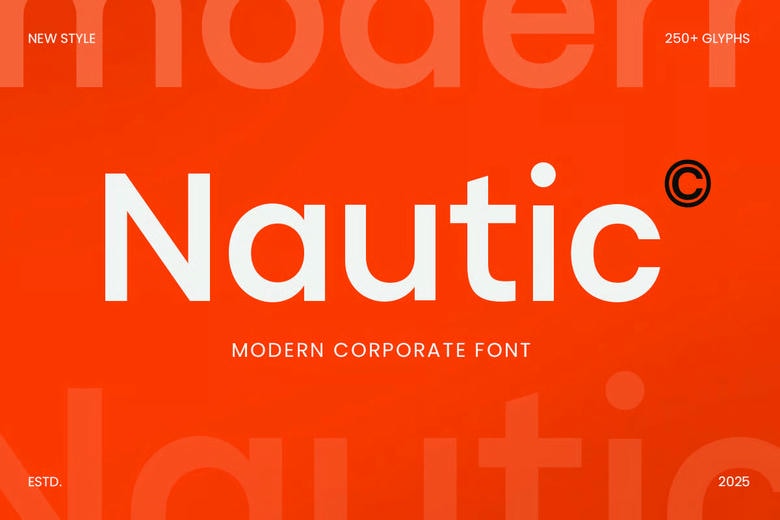
Nautic Font
Nautic is the contemporary corporate typeface that will add a sense of sophistication, professionalism to your branding or business design work. Nautic is ideal to use when designing silky smooth logos, powerful and bold corporate identities and modern business designs.
Regardless of whether you have a tech startup, financial services brand or a professional consulting organization, Nautic brings a clean and contemporary appeal to your brand visuals. It is extremely adaptable, so would be great to use with websites, marketing collateral and company stationary.
Nautic Modern Corporate Font